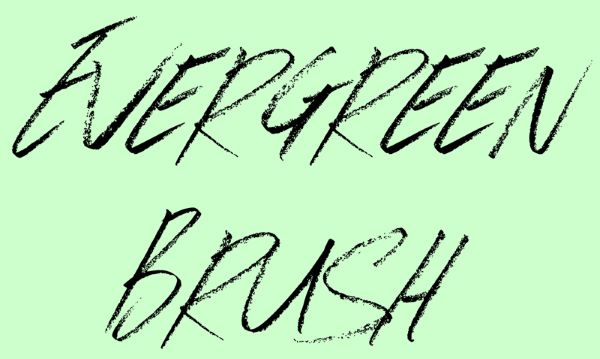
Evergreen Brush Font
Evergreen Brush Font is a Brush Font by JSH Creates — a thin, italic script with a grunge texture that feels spontaneous and genuinely hand-painted, written fast and without pretense. Its casual, disorganized charm gives designs an authentic rawness that polished digital typefaces can rarely replicate, making every layout feel like it was made by an actual human hand.
It works beautifully on café menus, homeware designs, book covers, movie titles, and photo overlays where that natural, imperfect texture is exactly what the composition needs. Browse our full library of Free Fonts and discover more expressive brush typefaces from independent designers worldwide.